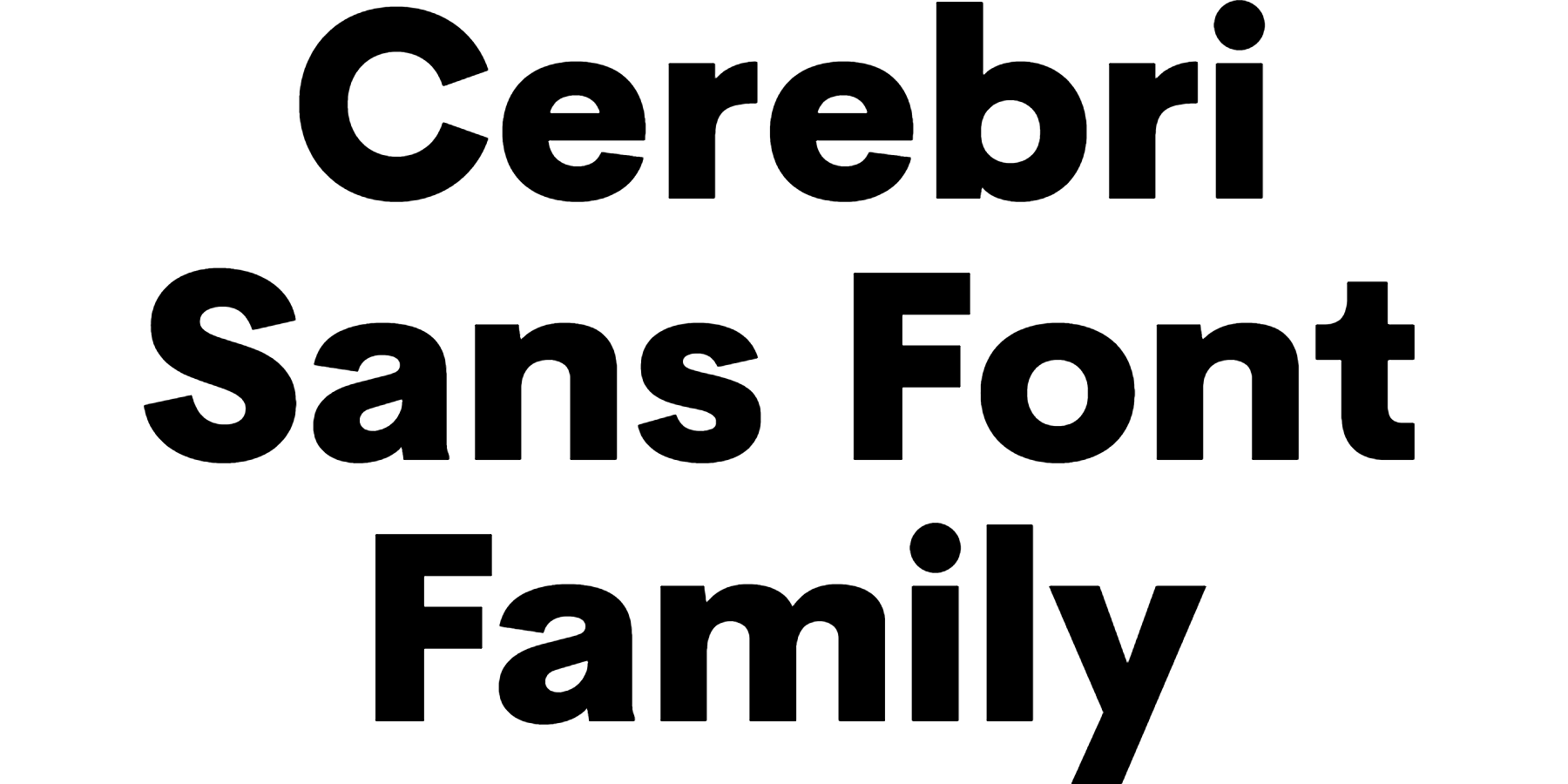
Cerebri Sans Font Family
Cerebri Sans Font Family is a sans serif font designed by Alfredo Marco Pradil and published by Hanken Design Co. Simple, open letter shapes keep it easy to read at almost any size, from app buttons to big headlines. You get six styles in one free ZIP, and the preview above lets you test each one before you download.
- Designer: Alfredo Marco Pradil
- Publisher: Hanken Design Co
What You Can Type With Cerebri Sans Font Family
Cerebri Sans Font Family covers the full alphabet in upper and lowercase, plus all ten numbers, so you can set names, dates and prices without switching fonts. Everyday marks like &, !, ? and @ are there too. Thanks to its accented letters, it also works for Spanish, French, German, Portuguese and Italian, not just English.
Where Cerebri Sans Font Family Works Best
Cerebri Sans Font Family is a natural fit for websites, app screens and clean logos. It works for headings and body text alike. If the download has several weights, use a heavier one for titles and a lighter one for paragraphs. Because the family has more than one style, you can mix them in a single design for headings, subheadings and highlights.
Does Cerebri Sans Font Family support accented letters?
Yes. Cerebri Sans Font Family includes the accented letters needed for Spanish, French, German, Portuguese and Italian, so it works for more than just English.